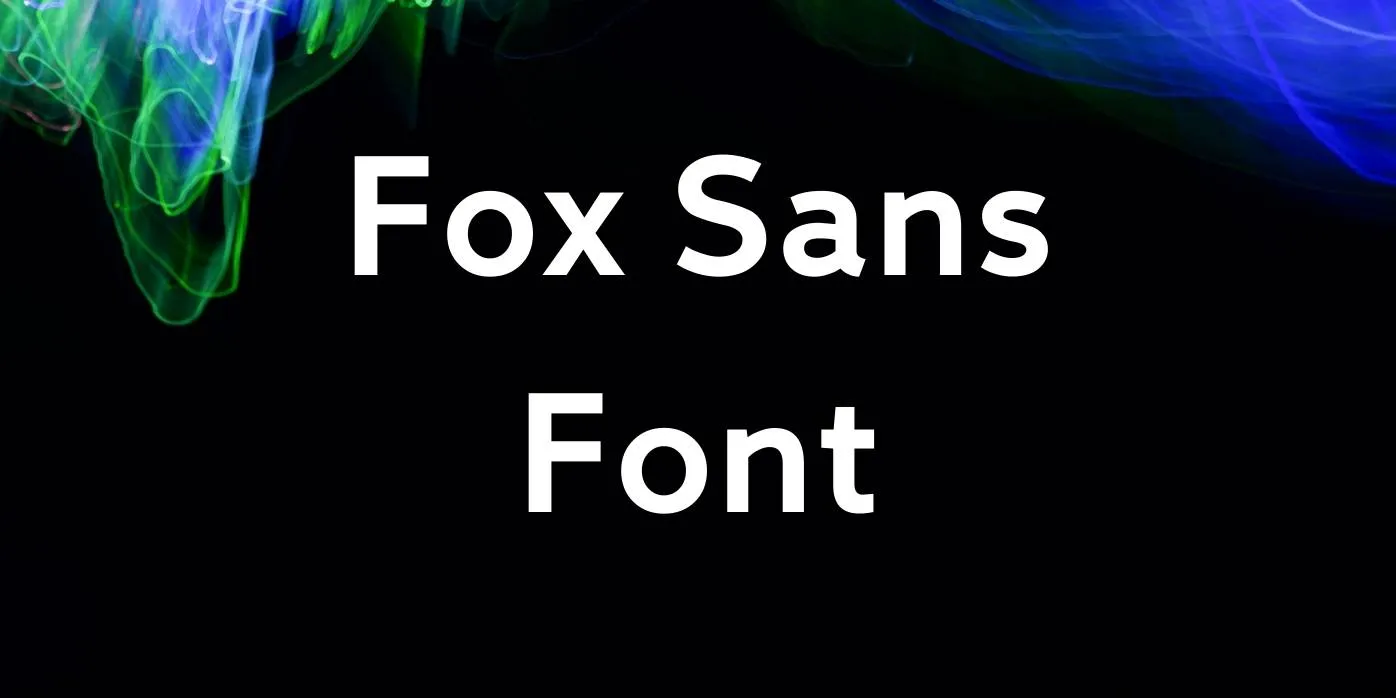
Fox Sans Font
In this post, we discuss a tremendous typeface that was developed by Ramiz Guseynov.  The name of the family is Fox Sans Font. This cozy font family belongs to the Sans Serif typeface. This classic typeface was distributed in the year 2001, by T26 type foundry. The main thing that should be considered while using this typeface is its readability.
The sans-serif fonts are quite difficult to read when they are used for large blocks of text. Therefore, it is recommended to use Fox Sans Font for headlines and short paragraphs only. This typeface comes in two styles Regular and Bold. The regular style is perfect for body text, while the bold style can be used for headlines and titles.
Its alternative arial black font is best for different designs. It is also best for Adobe and Canva. It has a very warm and friendly feeling to it. This makes it perfect for use in children’s books, or any other project that requires a light and cheerful tone.